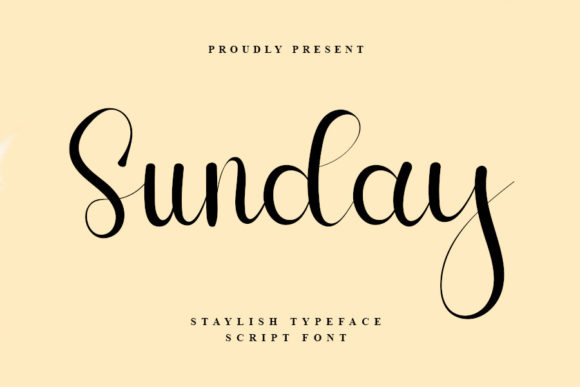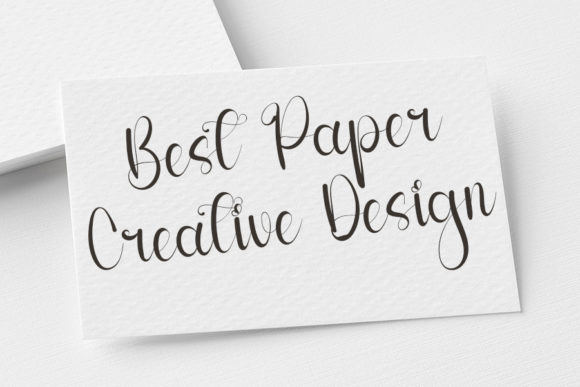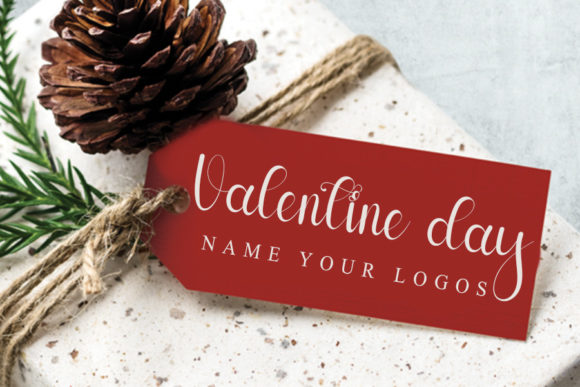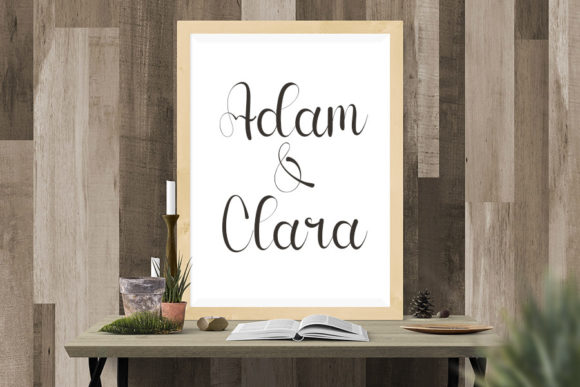
About Sunday Font
Sunday is a smooth and dainty handwritten font, that features a relaxed and sweet style. It is defined by lovely curves and is perfect for fashion branding or editorial designs. Add it confidently to your projects, and you will love the results.